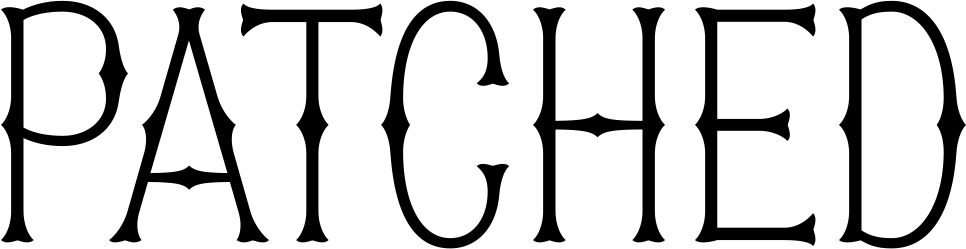
Patched Font
Try this nautical font to share a classic touch with audiences. It comes in 3 different weights and lets you pick your favorite one. Apply it to apparel goods, stickers, tickets, and other needs. Just keep in mind that Patched supports only capital letters. Need more? Browse our website and pick from the vast collection.